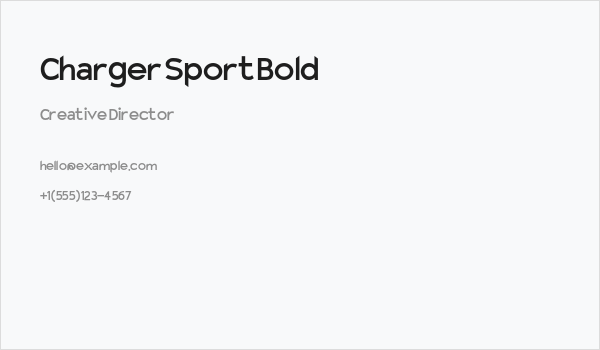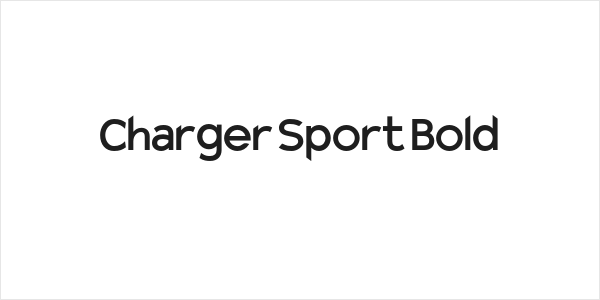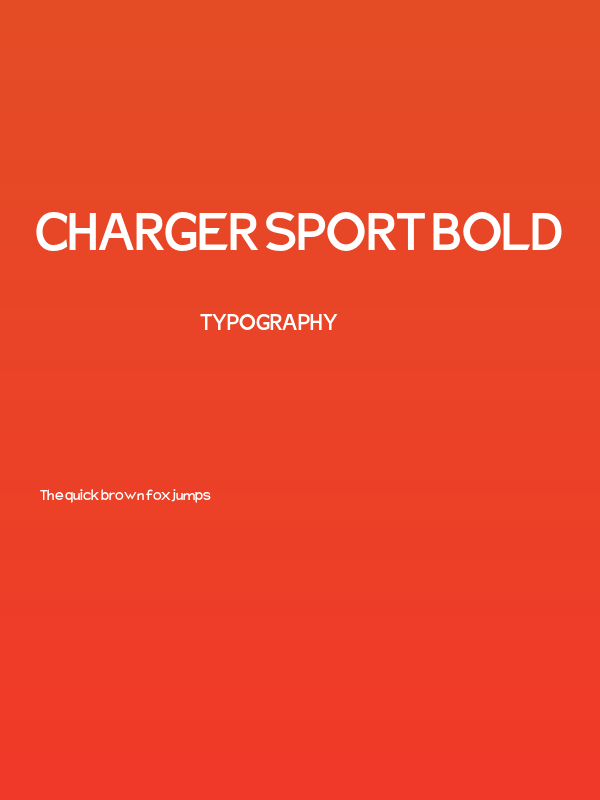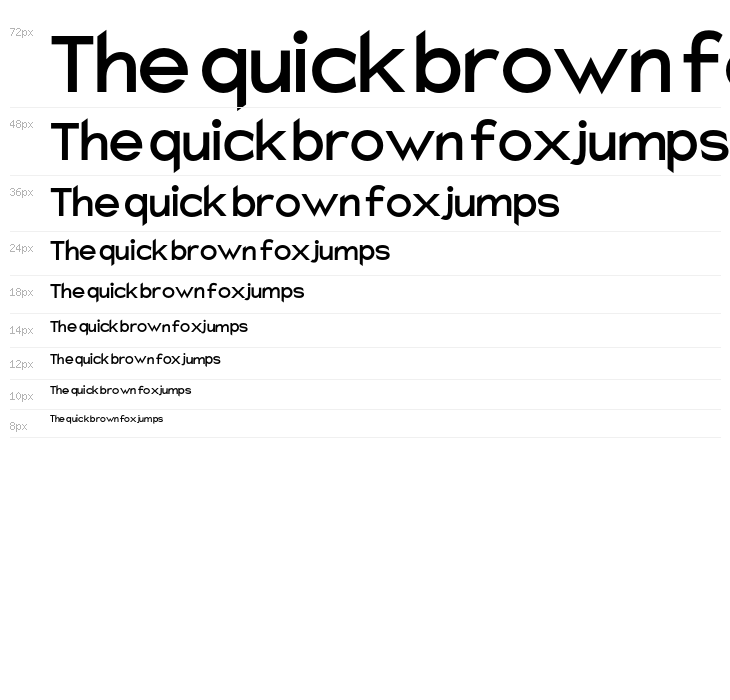
Charger Sport Bold Font
Charger Sport Bold Description
This font exhibits a bold and modern sans-serif style, characterized by clean lines and a geometric structure. The uppercase letters are uniform in height, providing a strong and cohesive appearance. The lowercase letters maintain a consistent roundness, contributing to the font's approachable and friendly demeanor. Numerals are clear and easily distinguishable, making them suitable for various applications. The special characters are well-integrated, ensuring versatility in design projects. Overall, the font's bold weight and balanced proportions make it ideal for impactful headlines and branding.